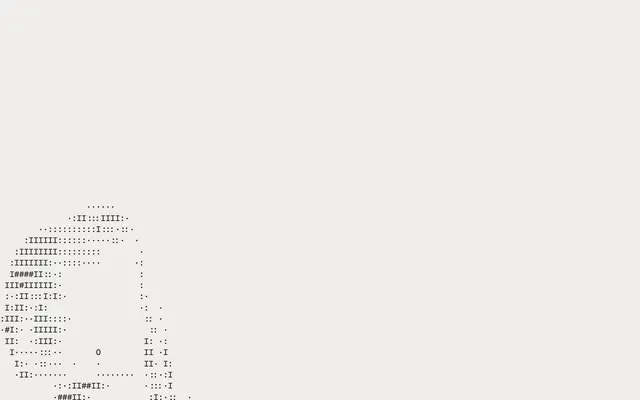
A monospaced typeface with large functional ink traps and unconventional glyph constructions, optimised for legibility at small sizes on screen.
Eight weights from Thin to Ultra, each with a matching italic, give MD IO broad expressive range across interface and display contexts. Large ink traps, designed as legibility aids at small sizes, become distinctive stylistic features at larger settings. A two-axis variable font covering weight and italic is available on request with full family orders, and the face is designed to complement Mass-Driver's MD UI.
MD IO is explicitly described as a monospaced typeface with fixed-width glyph construction, unconventional letterforms and functional ink traps optimised for screen and small-size legibility.